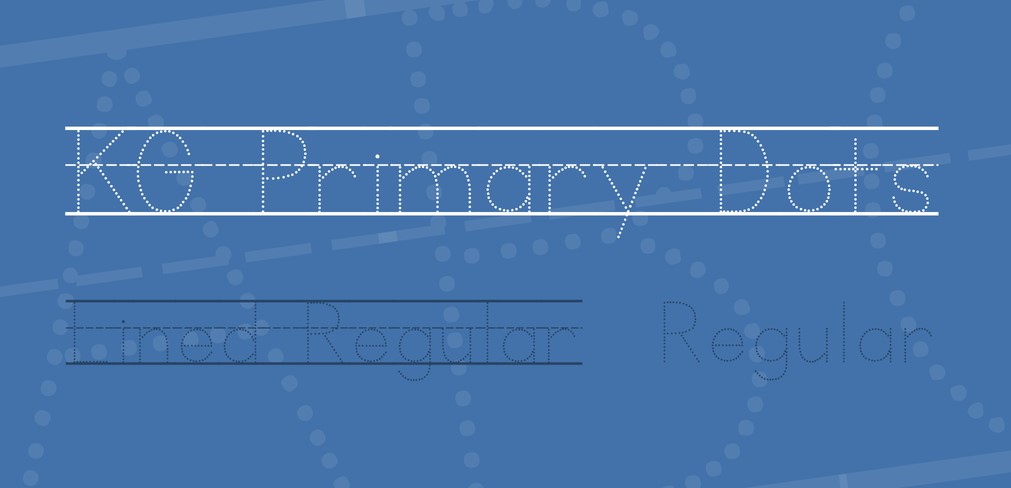
Kg Primary Dots Font
KG Primary Dots Font is available for free personal use. This is famous for its Urdu typeface and it is also known for tracing and available in Microsoft Word. In advance than you answer that question, reflect on consideration on all of the things you understand approximately serif and sans serif typefaces, and all the myths associated with them. Some not unusual serif typefaces are times new roman.